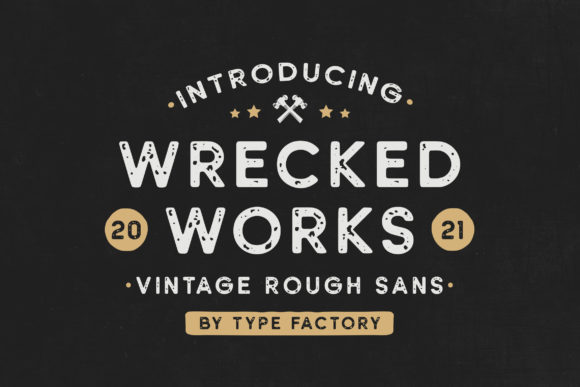
Step into the world of vintage charm with Wrecked Works, the display font that exudes a captivating aura of nostalgia. Its cool, rough-textured style evokes a sense of authenticity, reminiscent of weathered signs and timeworn artifacts. With Wrecked Works as your creative companion, you'll uncover a treasure trove of design possibilities.
Unleash your imagination and let Wrecked Works work its magic on your projects. Whether you're crafting posters, branding materials, or social media graphics, this font will add a touch of vintage flair that sets your work apart. Its rugged, imperfect beauty will capture attention and leave a lasting impression on your audience.
Explore the depths of Wrecked Works' character set and discover a harmonious blend of classic and contemporary. Each letterform dances elegantly on the page, adorned with intricate details that tell a story of history and heritage. From the sweeping curves of the ascenders to the grounded stability of the descenders, Wrecked Works creates a visual symphony that resonates with timeless appeal.
Harness the power of Wrecked Works to elevate your designs to new heights. Its versatility knows no bounds, making it an indispensable tool for designers of all skill levels. Whether you're a seasoned professional or just starting your creative journey, Wrecked Works will effortlessly enhance your projects and leave your audience in awe.